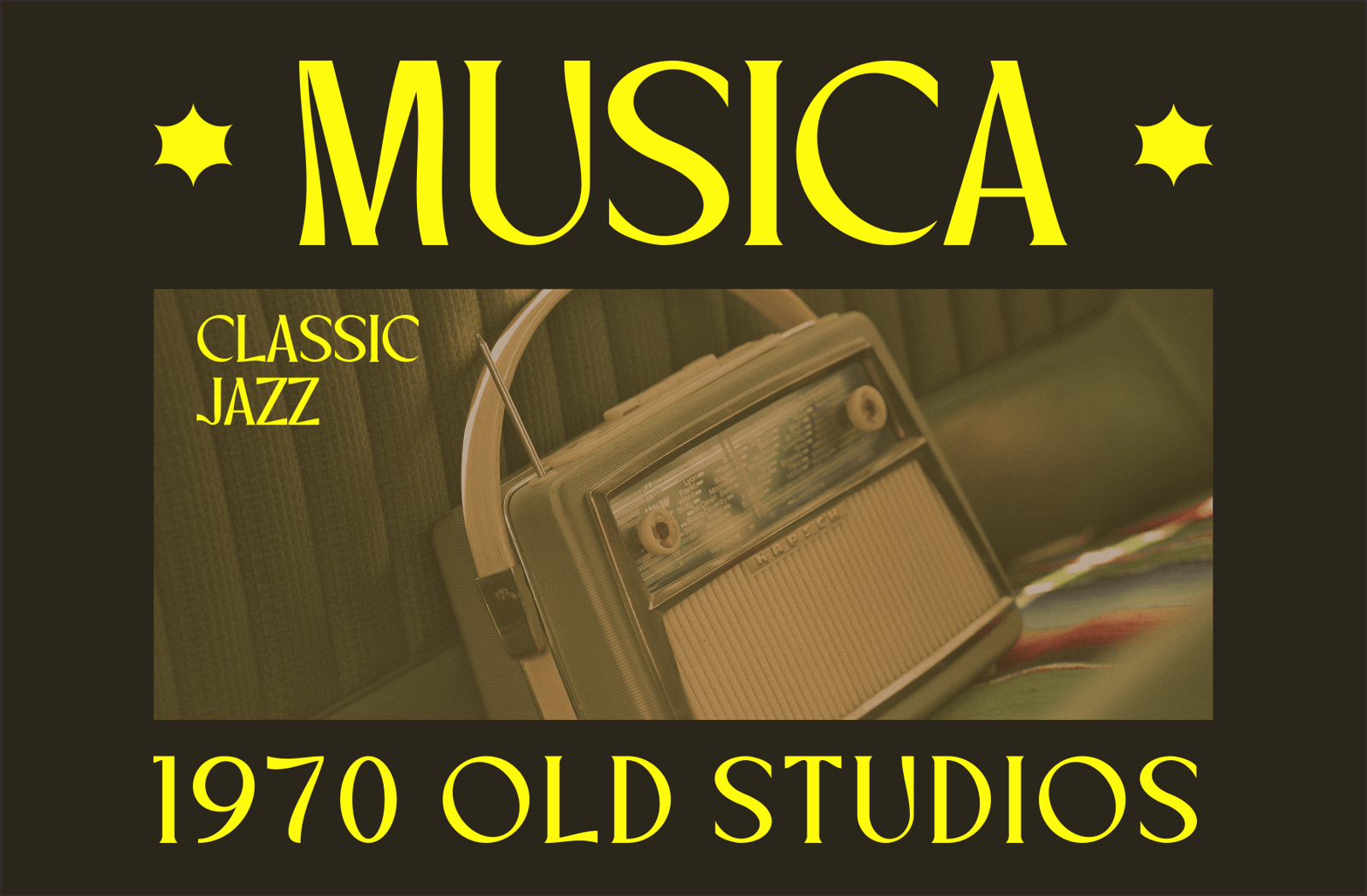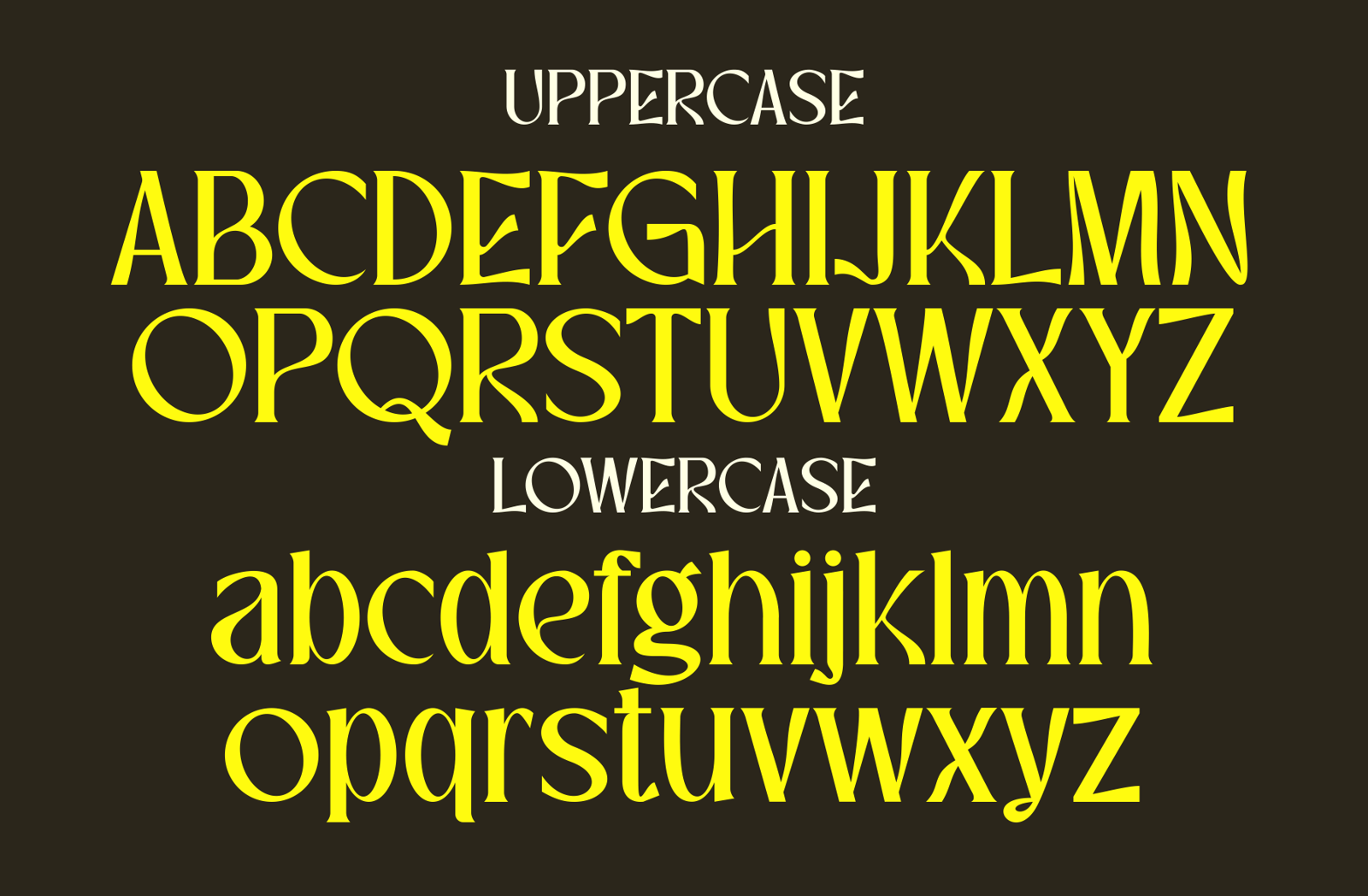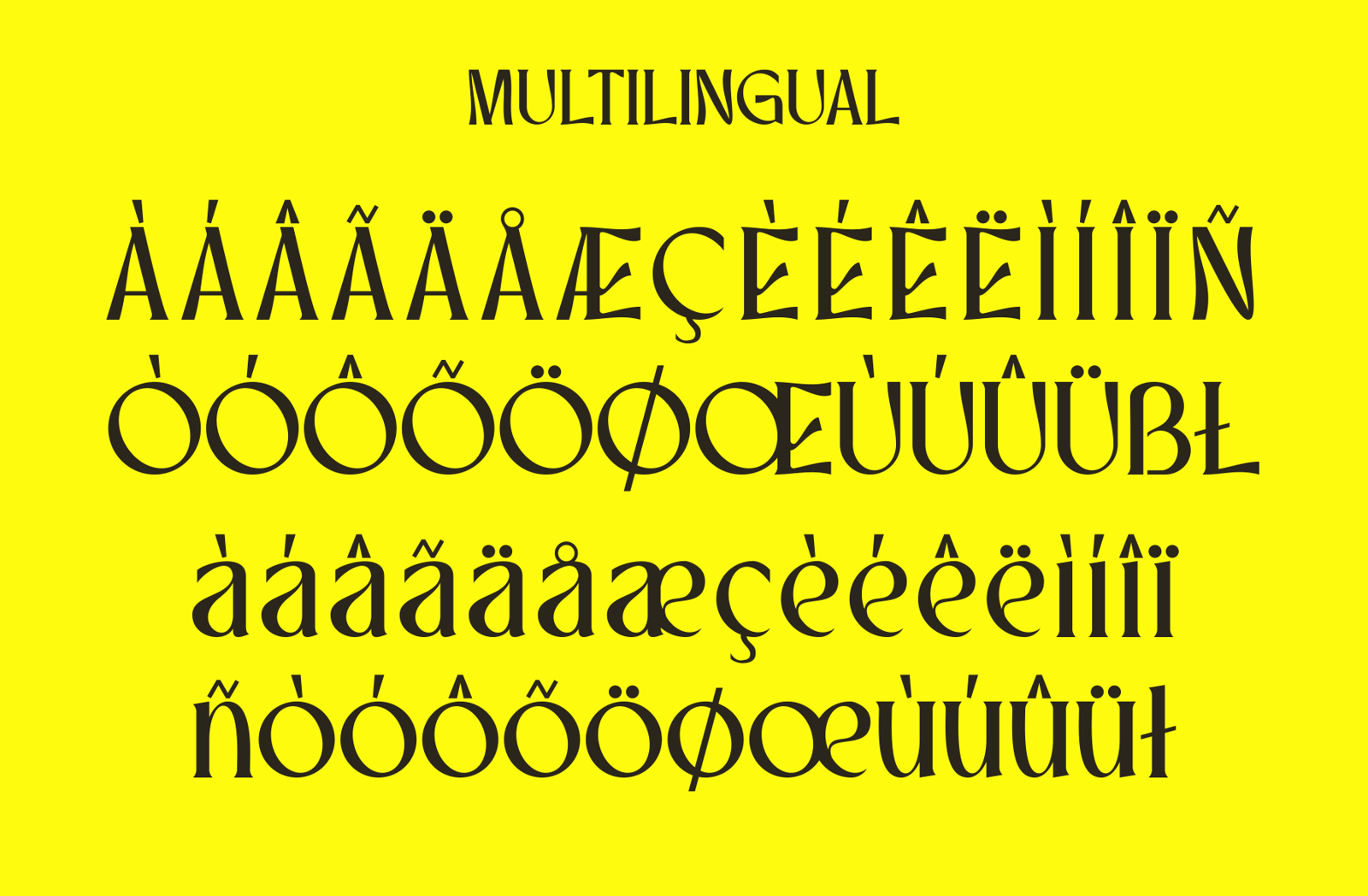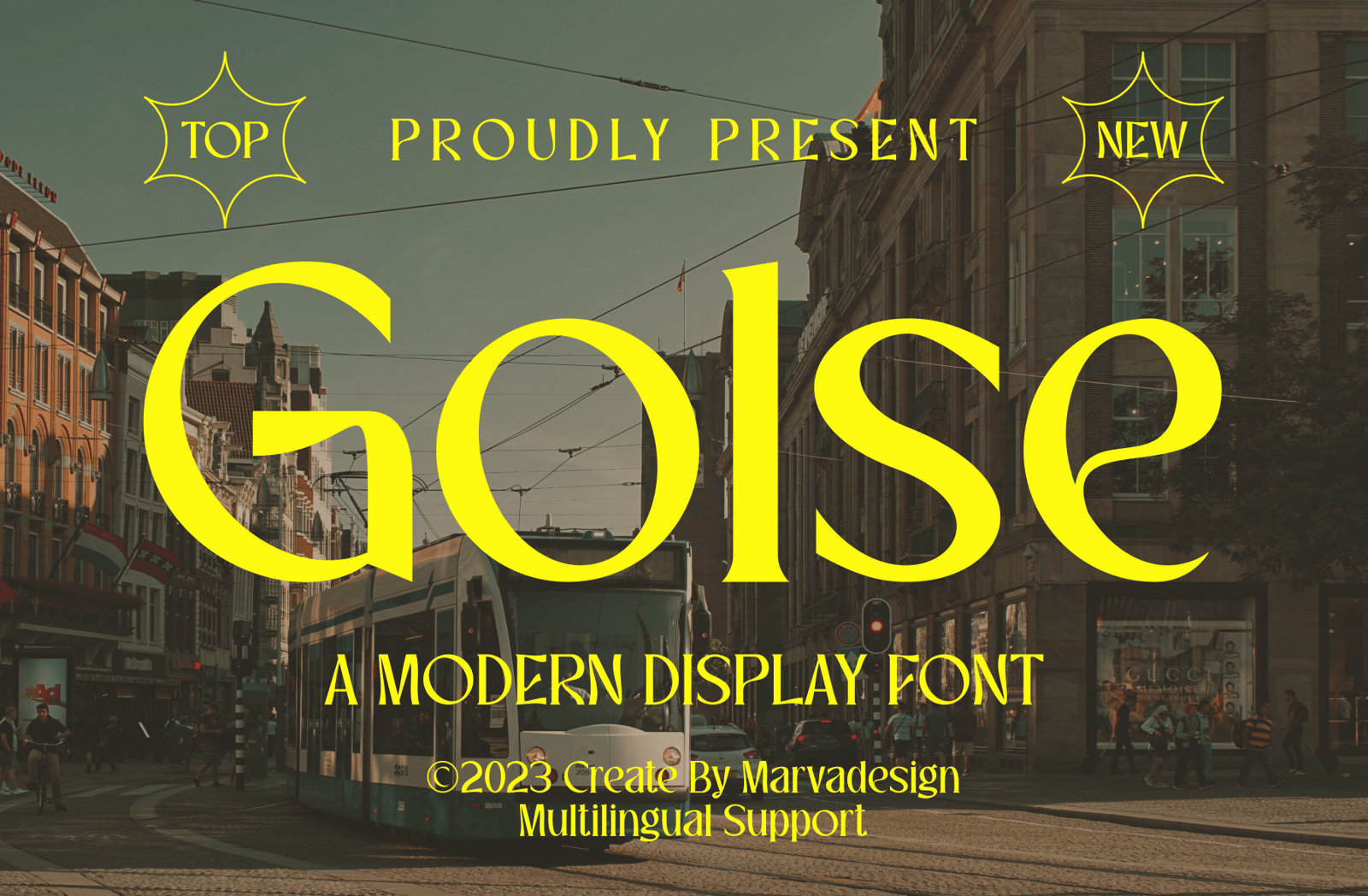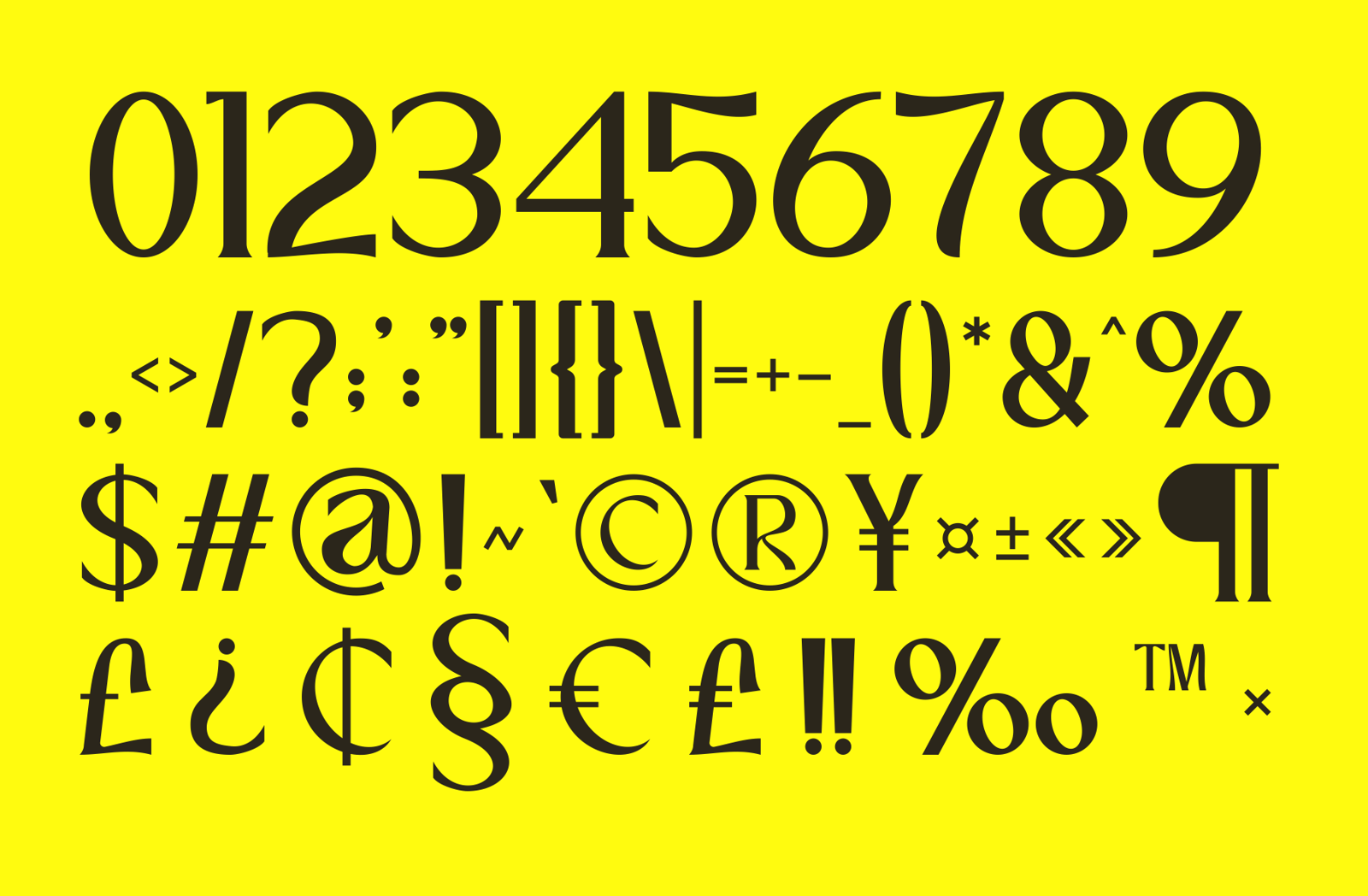
Golse Font
Introducing our new product **Golse** Font - A Modern Serif Font Golse Font - A Modern Serif Font authentic display font. The font is suitable for any branding project like logo, Template Design, Product and many more. outstanding in a wide range of contexts.
*Uppercase
*Lowercase
*Multilingual